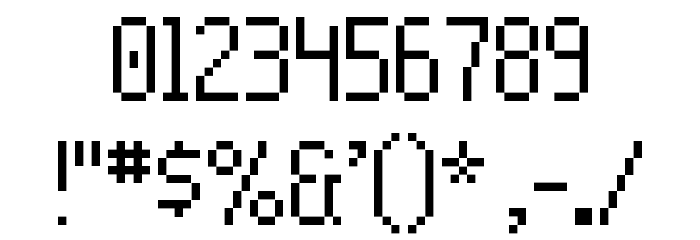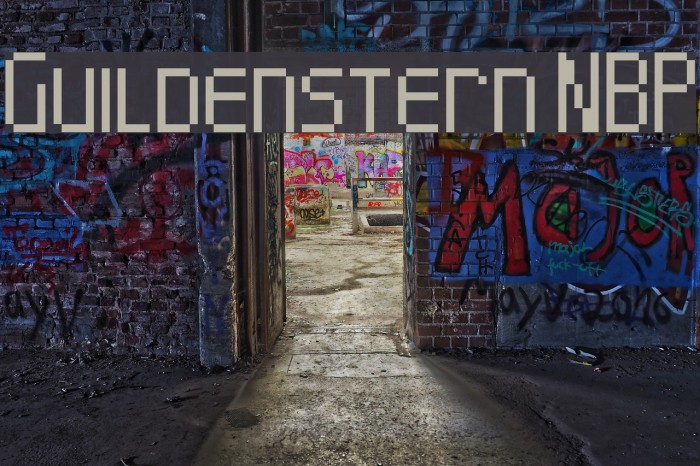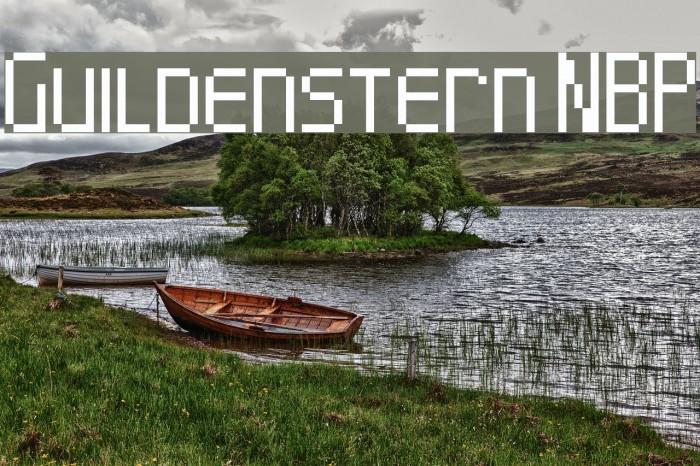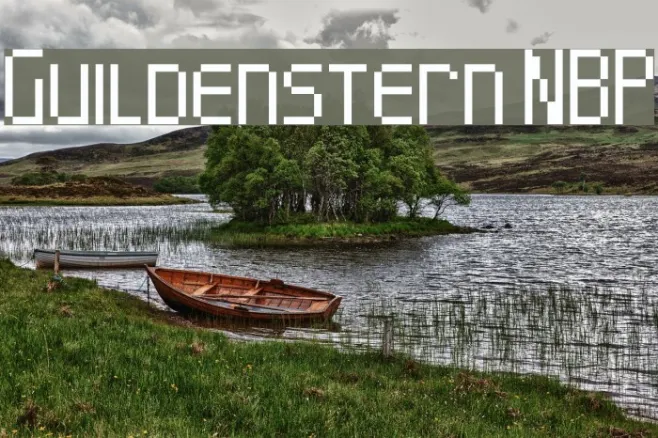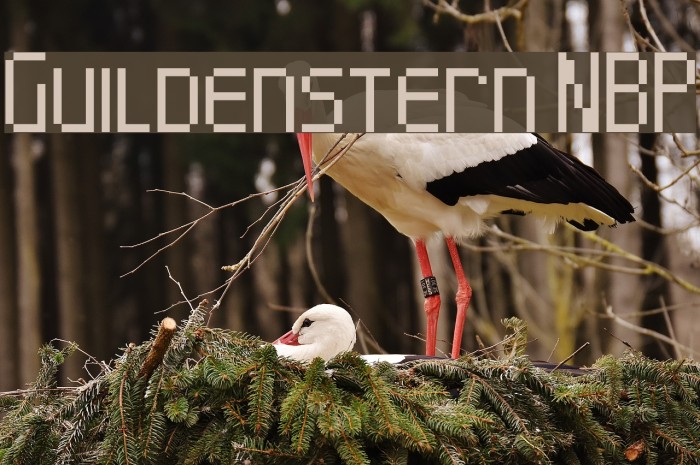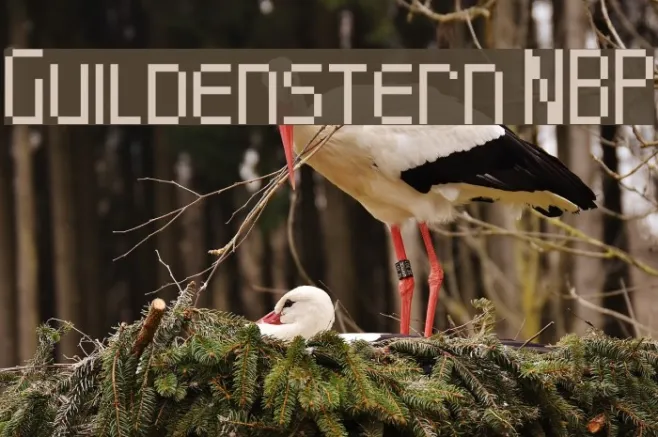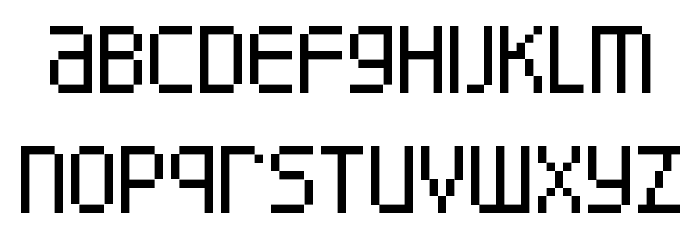
Guildenstern NBP Font
Guildenstern NBP Description
This font features a pixelated, blocky design reminiscent of early digital displays and retro video games. Each character is constructed with a grid-like precision, giving it a distinctly digital and geometric appearance. The uppercase and lowercase letters maintain a consistent height, contributing to a uniform and structured look. Numbers and special characters follow the same pixelated style, ensuring visual consistency across all elements. The font's simplicity and clarity make it highly legible, even at smaller sizes, while its unique style adds a nostalgic touch to any design.
| Overall Style | Retro, Digital |
| Use Case | Headlines, Logos, Digital displays |
| Proposed Projects | Ideal for video game design, retro-themed posters, digital art projects, and any creative work that requires a nostalgic digital touch. |